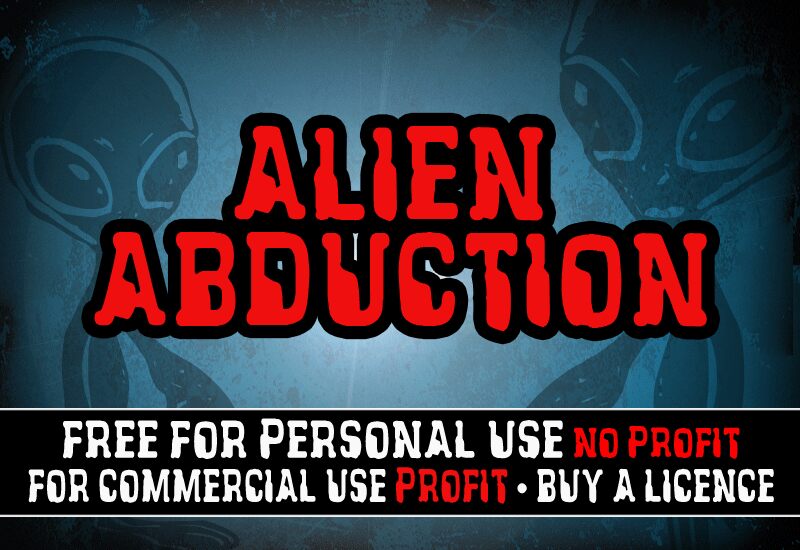
CF Alien Abduction by CloutierFontes is a free futuristic display font with swollen, uneven capitals and a broad, soft-edged silhouette. Its broad strokes pinch and bend around tight openings, with occasional nicks that make the forms look molded rather than engineered. The spacing is compact and slightly uneven.
Science-fiction game studios and brands could use it for packaging, posters, and merchandise. In publishing, its distorted industrial shapes suit comic covers and magazine features about aliens, technology, or cult cinema.
CF Alien Abduction
CF Alien Abduction Regular is a font by CloutierFontes, designed by Steve Cloutier in 2013.